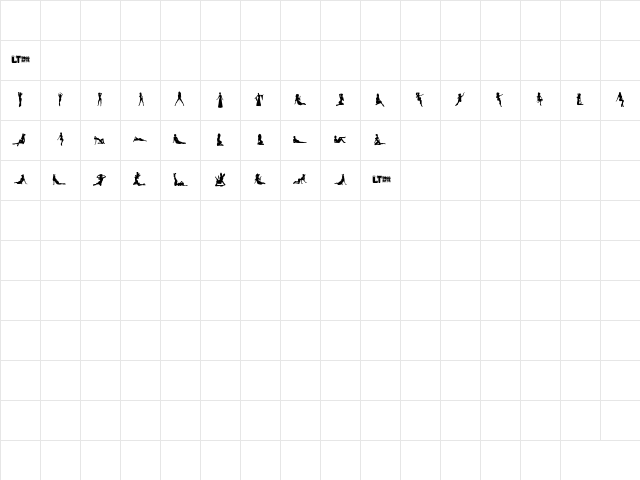
Silhouettes from Poser LT Regular Free Font
Silhouettes from Poser LT Regular
Design Context for Silhouettes from Poser LT
Silhouettes from Poser LT is a composed and adaptable typeface that performs quietly and consistently across a wide range of design contexts. Its slender proportions lend an understated elegance to any composition.